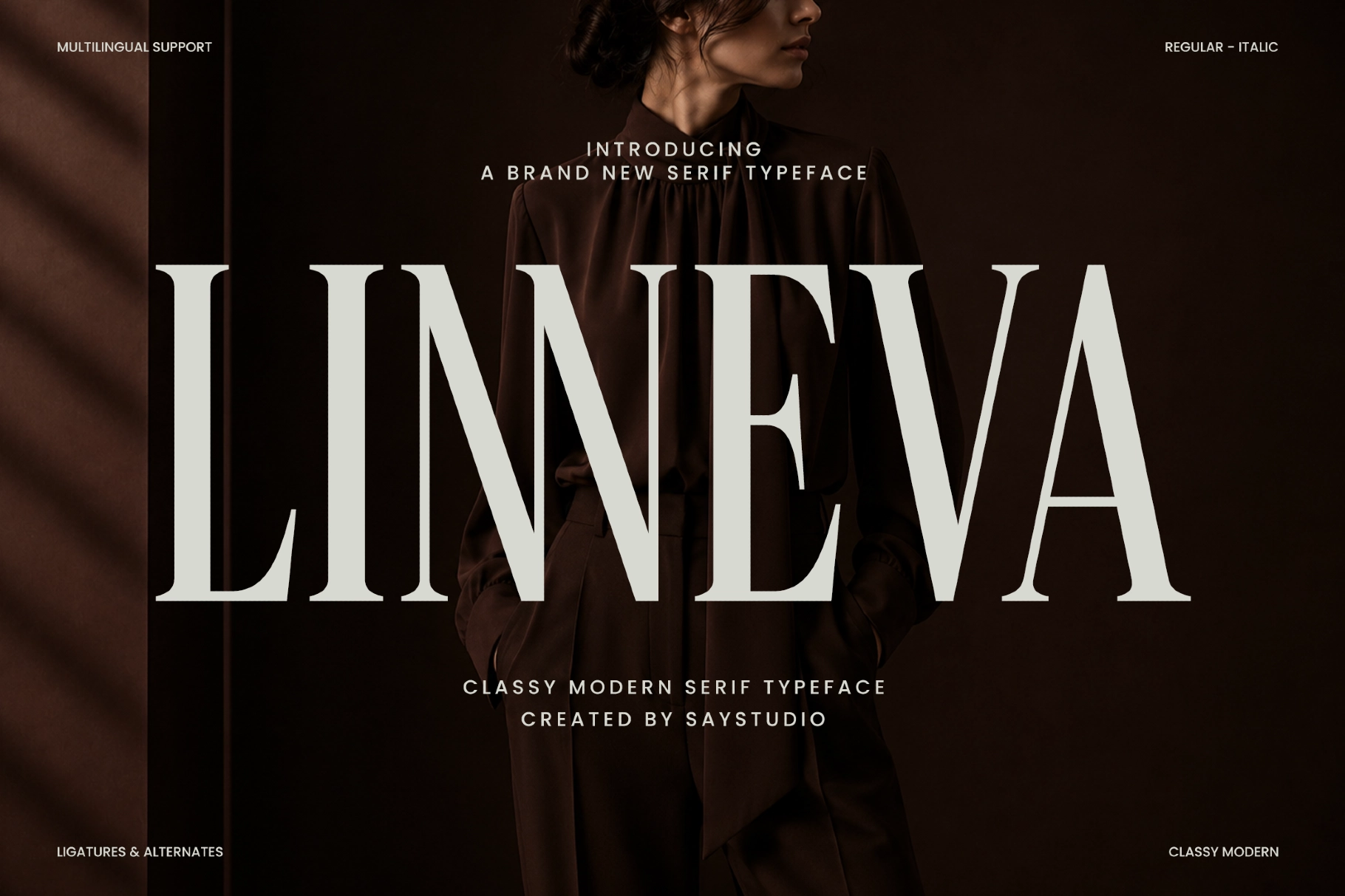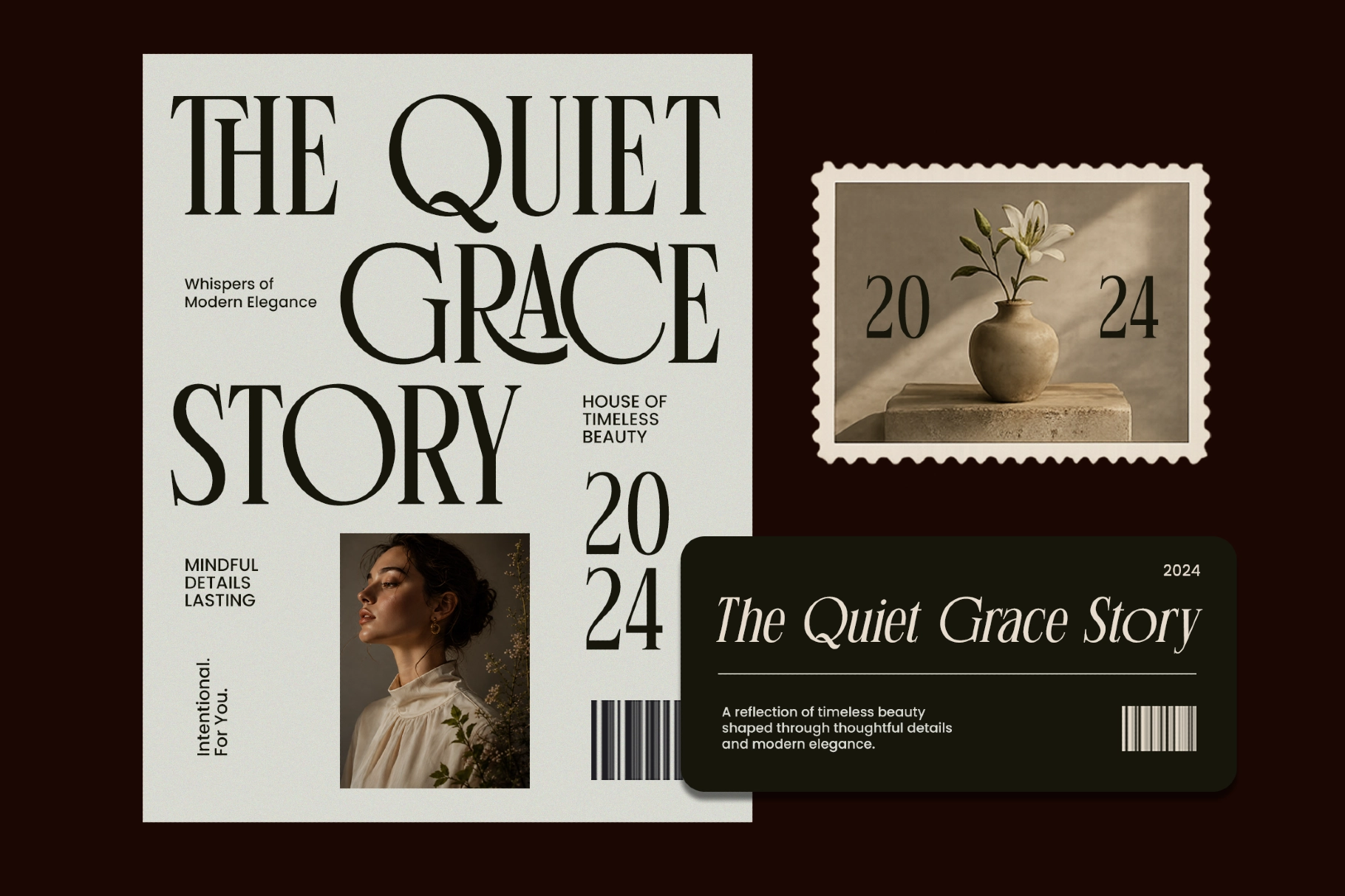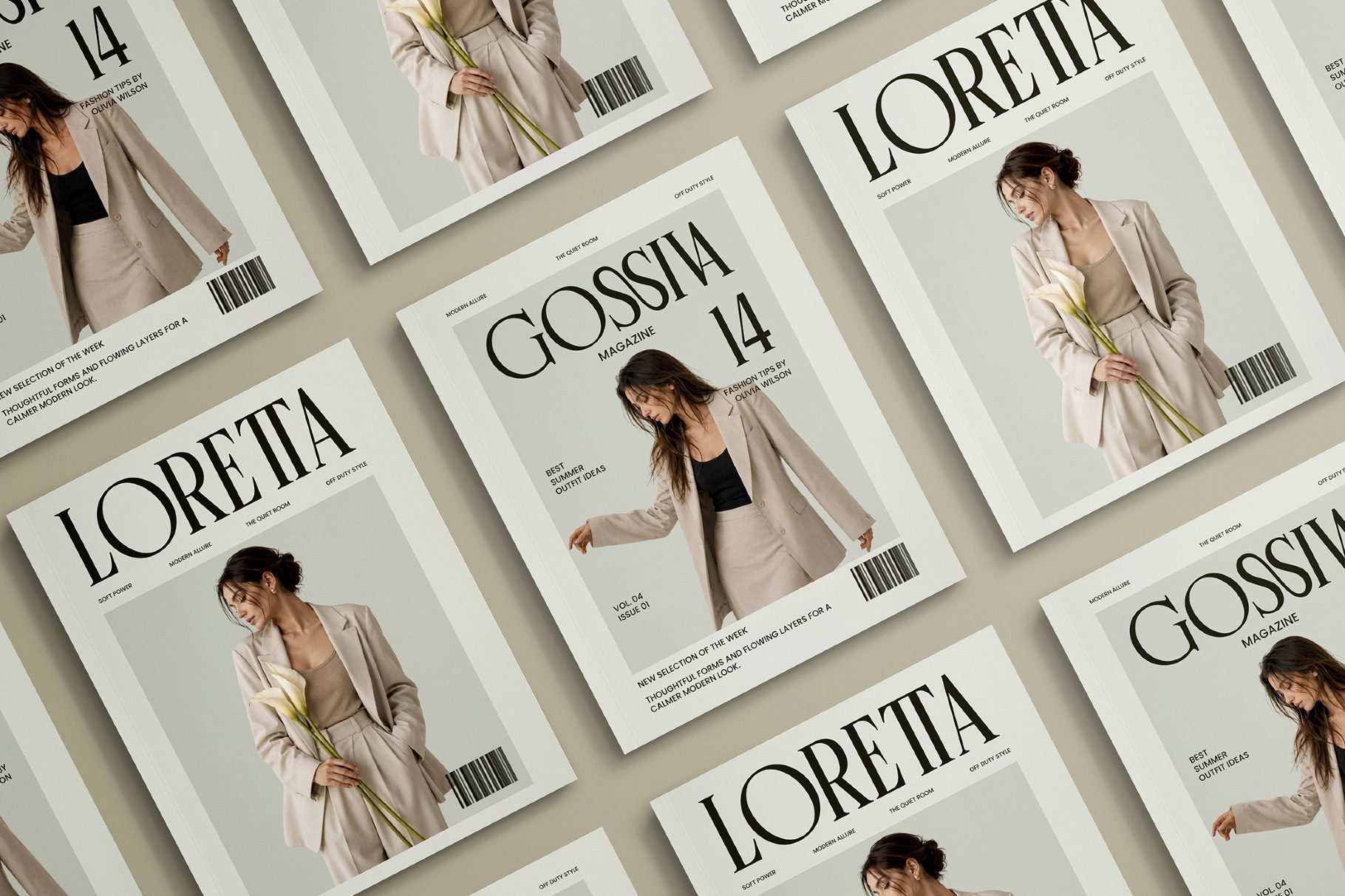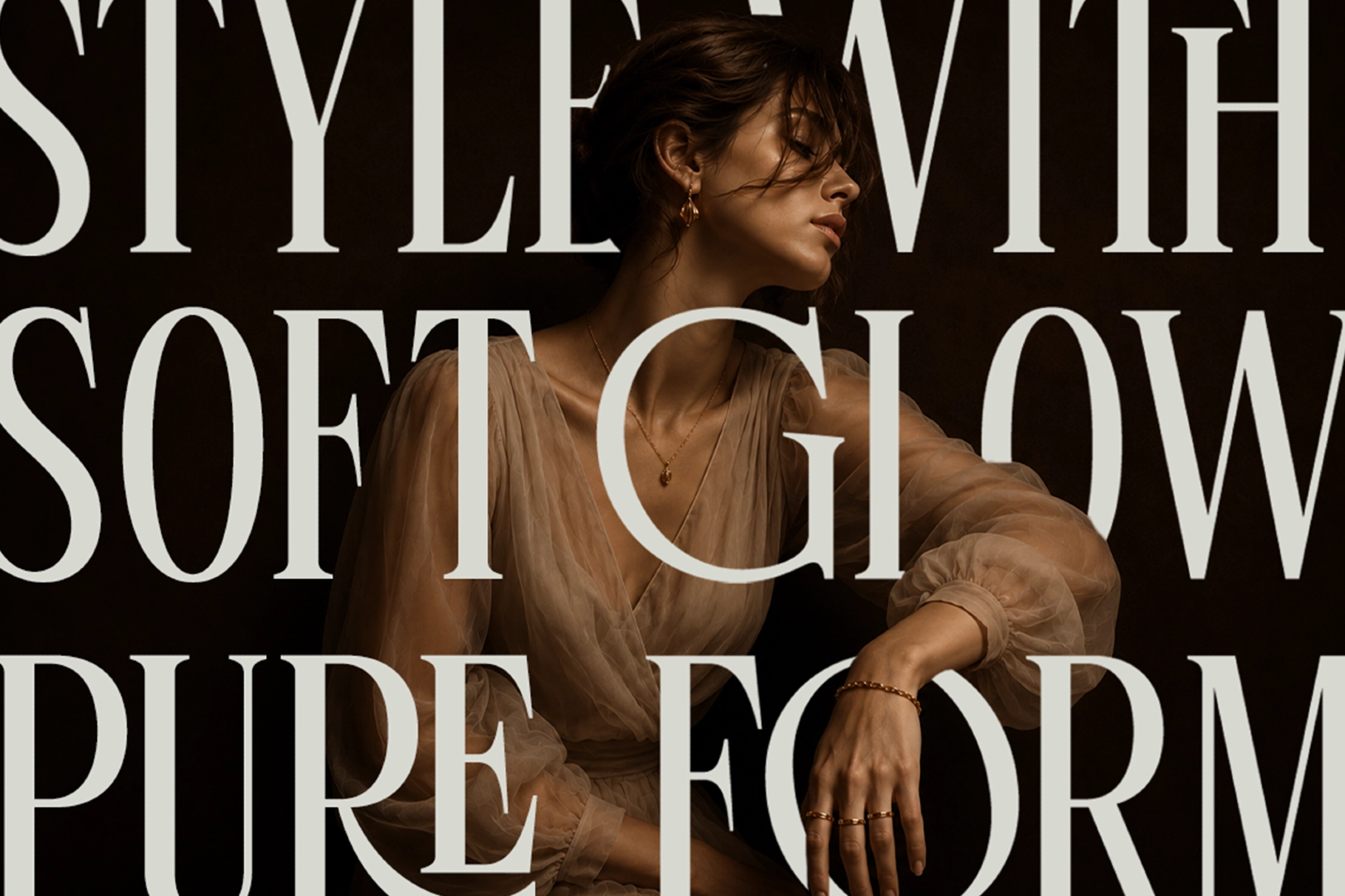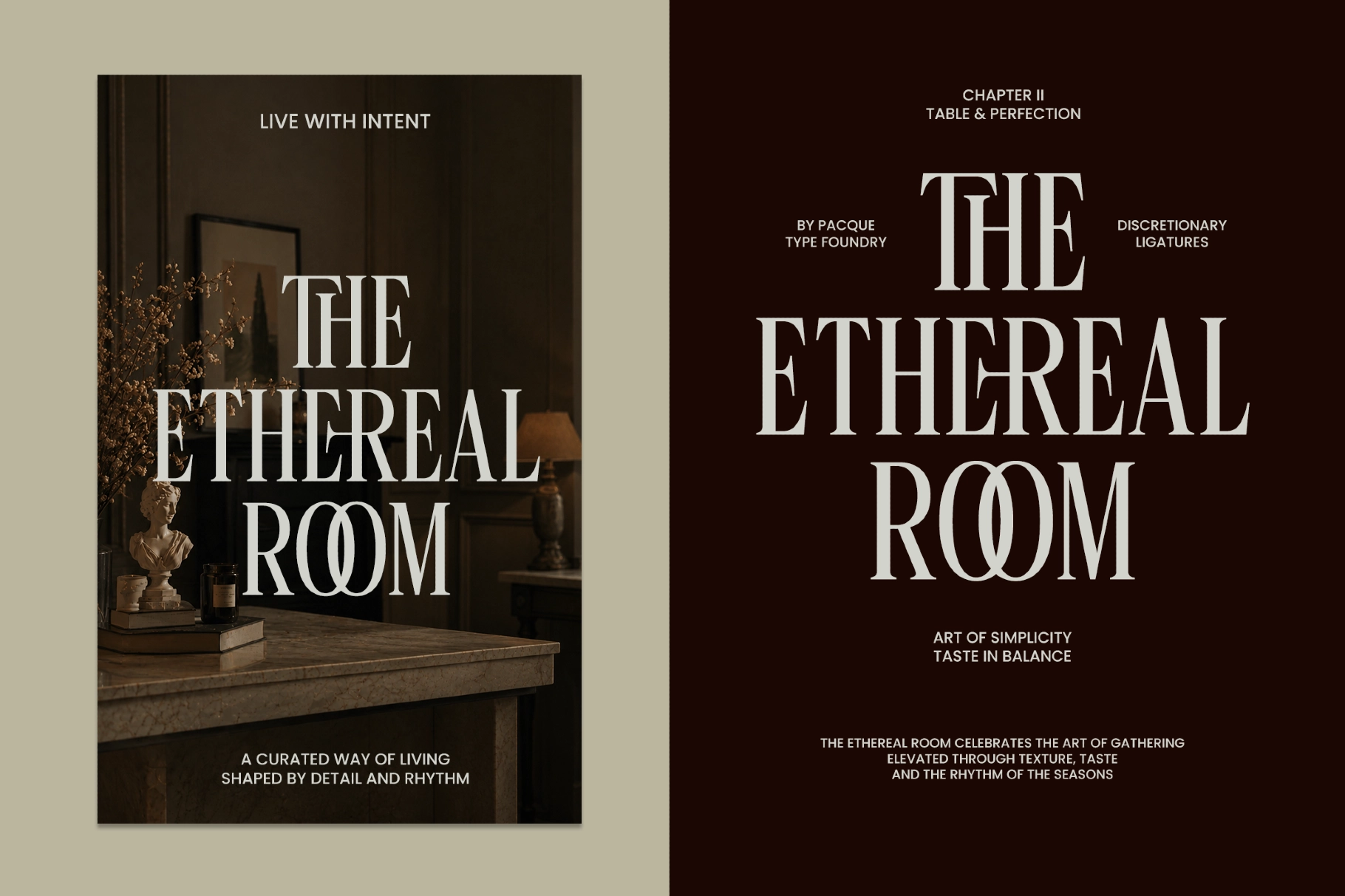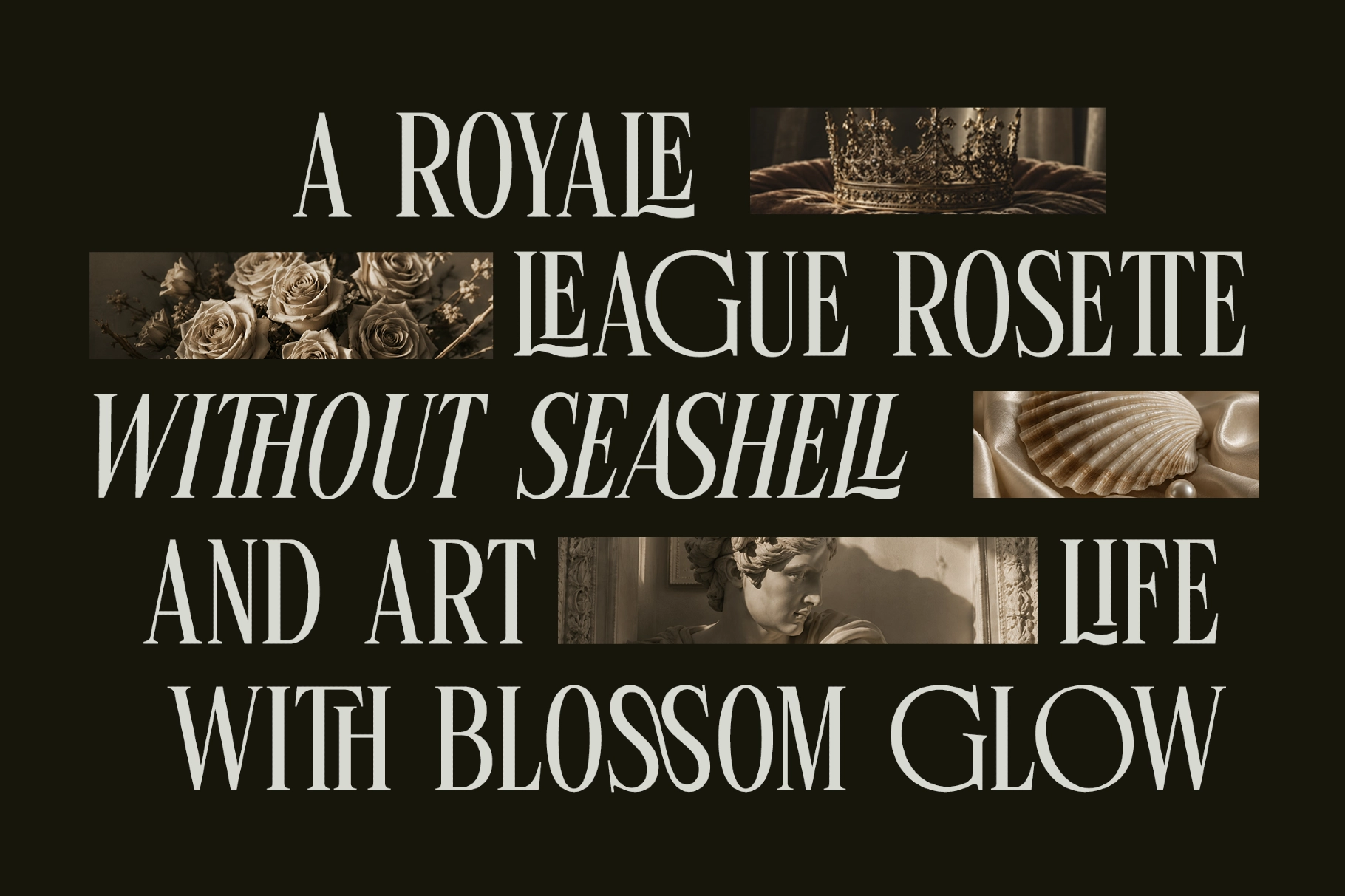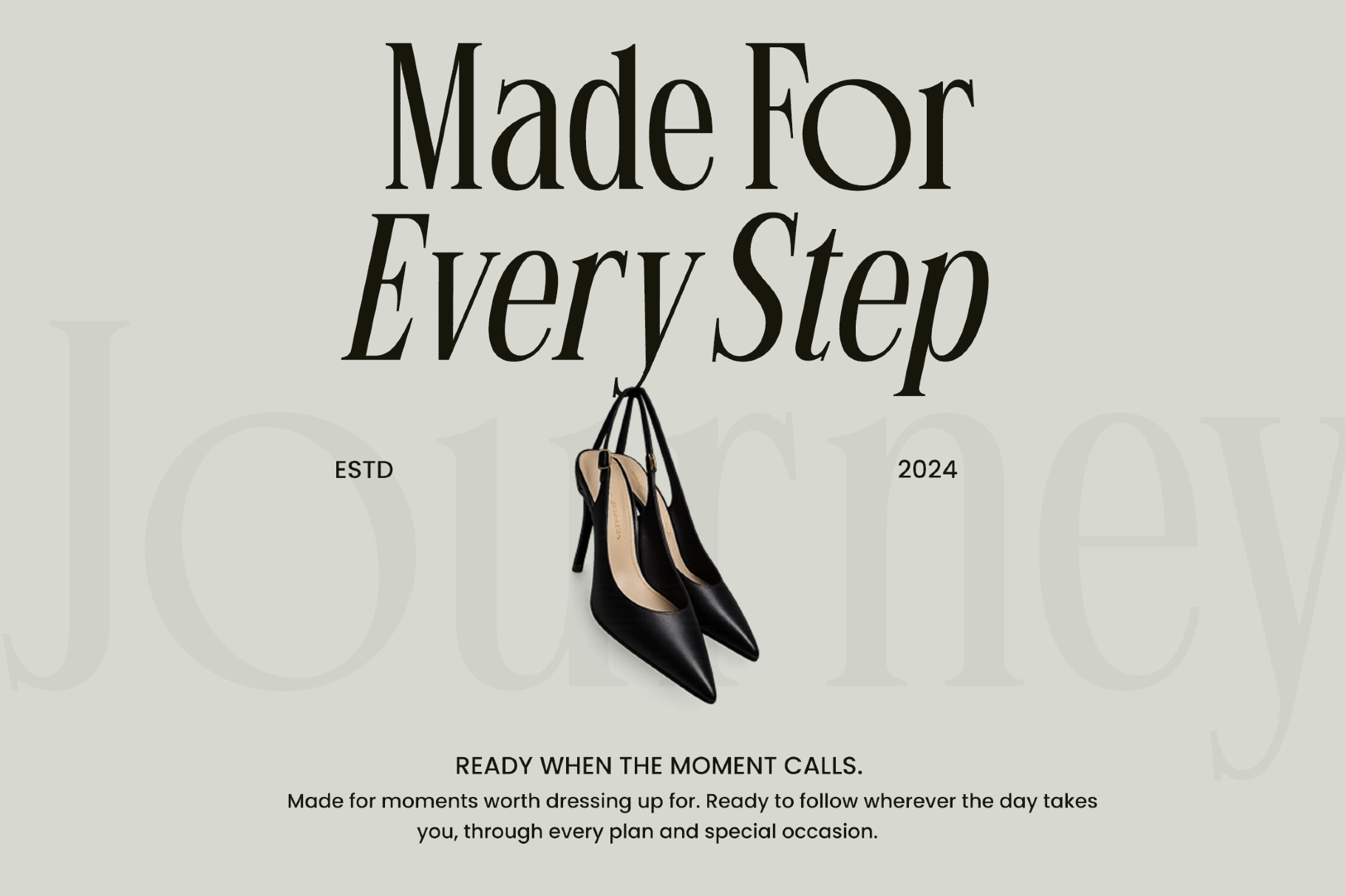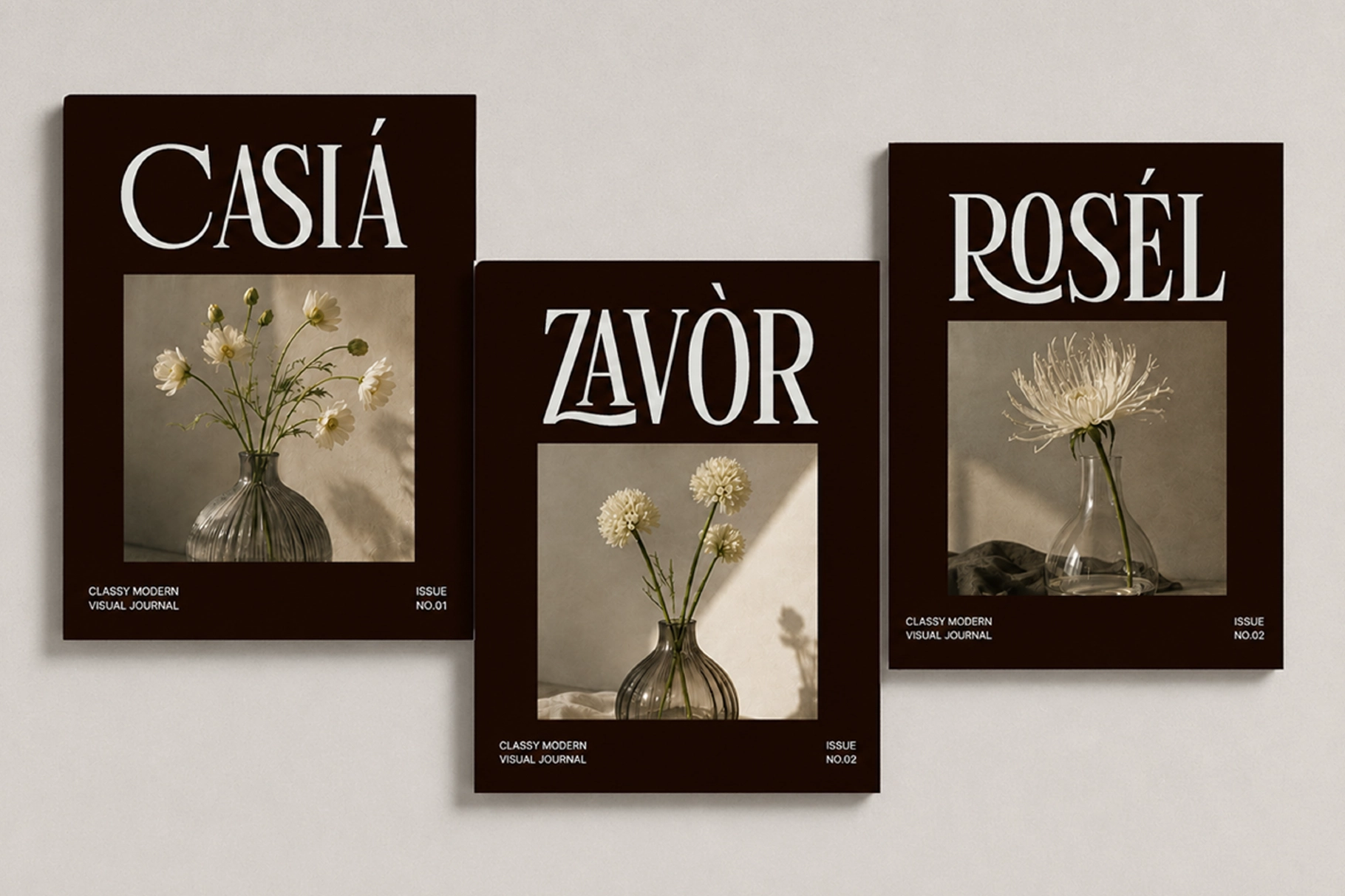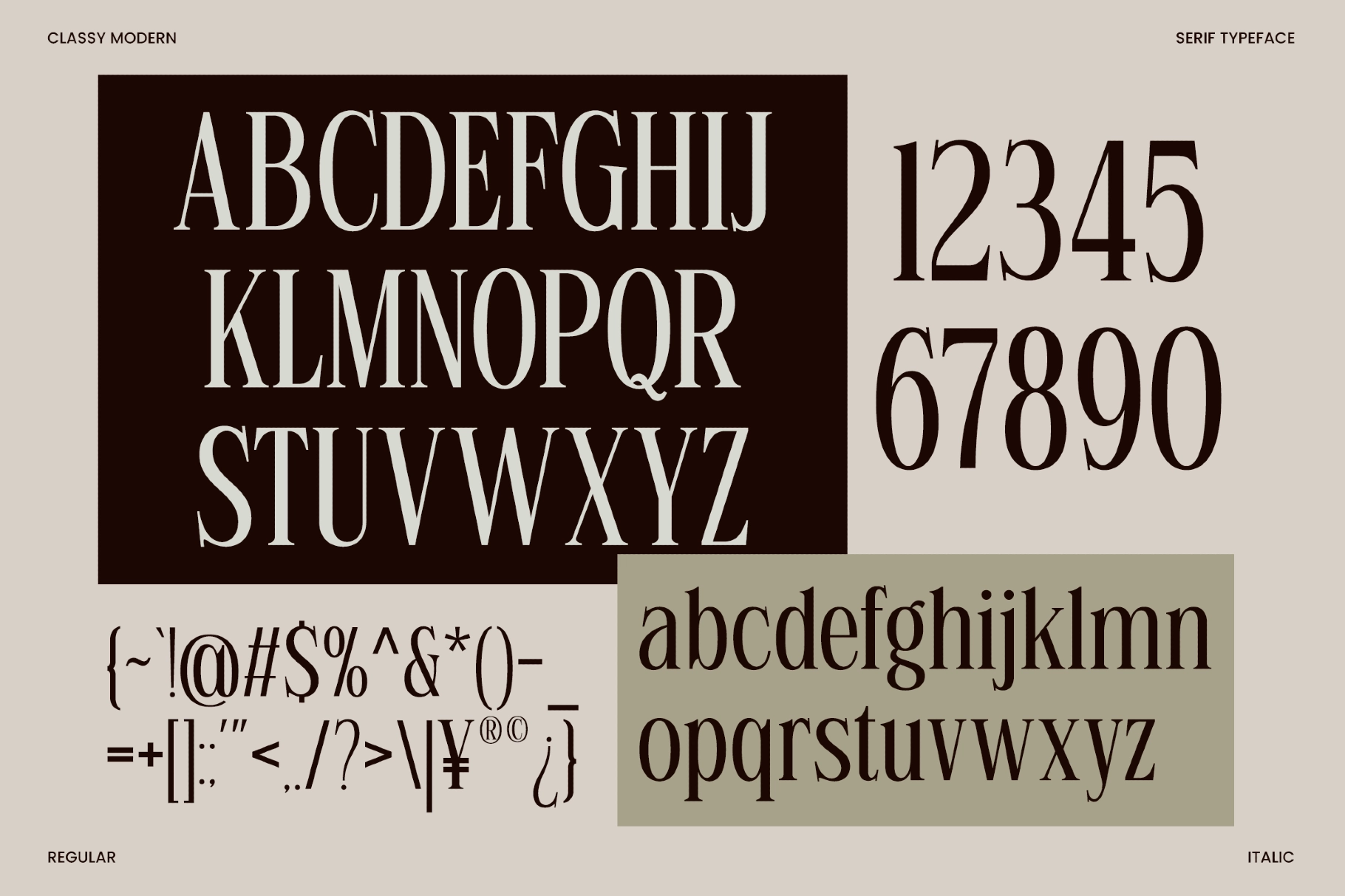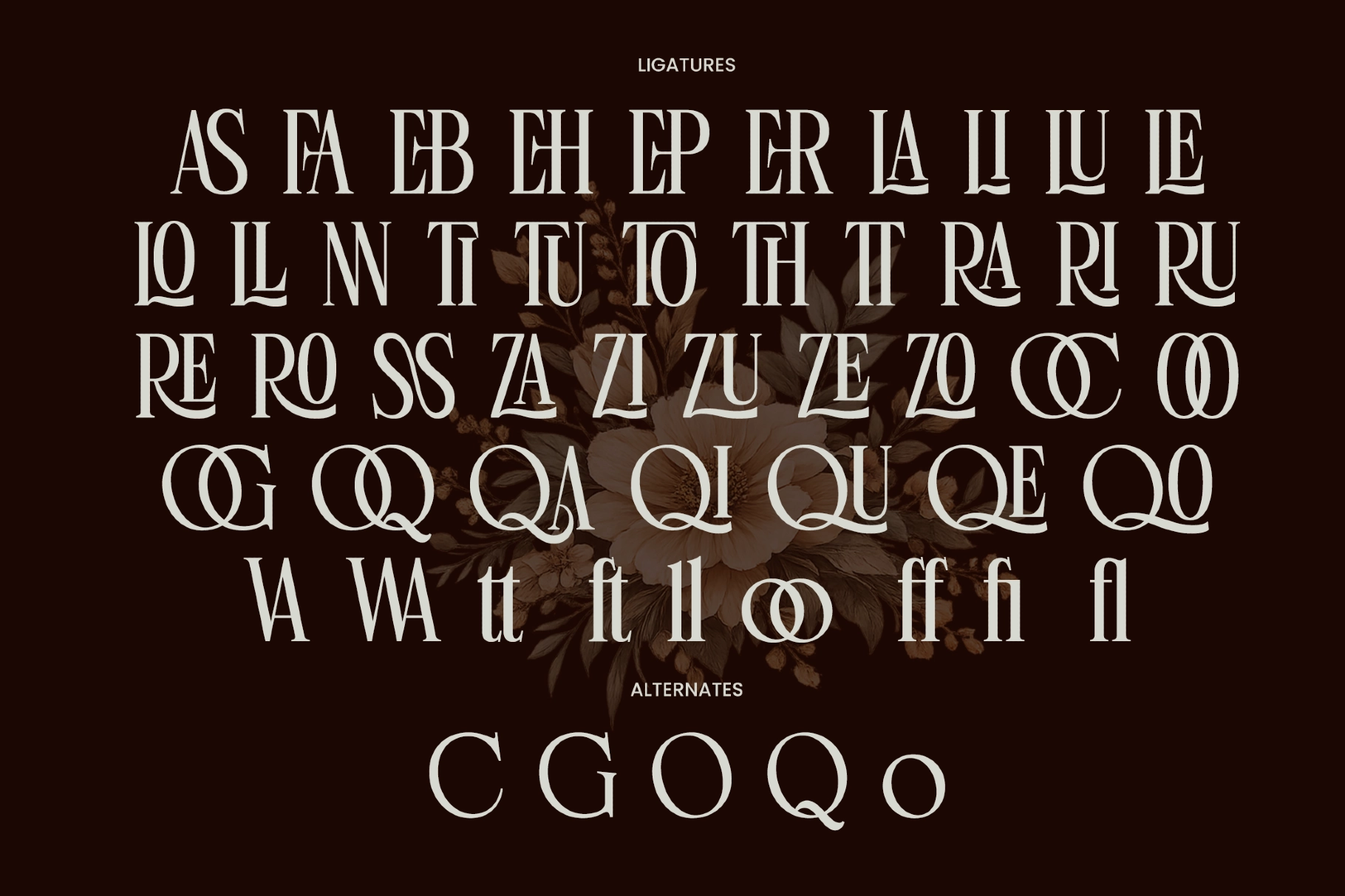
Linneva - Luxury Ligature Serif Font
Linneva draws on luxury magazine spreads and high-end fashion editorials , with high-contrast strokes, tall narrow proportions, and a set of decorative ligatures running through the set. This luxury serif font holds an editorial spine, so headlines read crisp at large sizes while the italic companion adds a softer, more fluid counterpoint for pull quotes and accent lines.
Linneva works best where a brand wants restraint with presence — boutique packaging, jewelry branding, and beauty labels all sit comfortably under its narrow caps, and the same proportions carry through to magazine mastheads, wedding stationery, and gallery-style social posts. Use it for logos, invitation suites, perfume and candle packaging, editorial headlines, lookbook covers, and interior-studio branding.
- 2 styles: Regular, Italic;
- uppercase & lowercase;
- numerals, punctuation & symbols;
- ligatures & alternates;